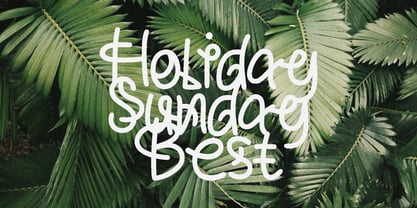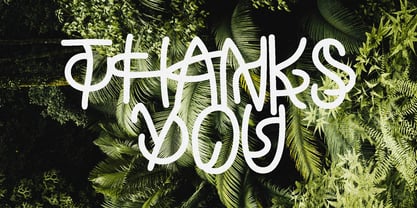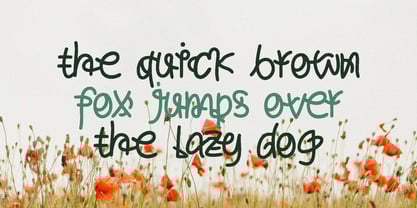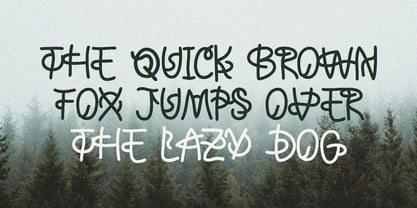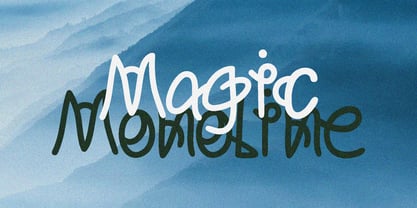
Magic Monoline
by Erifqizefont
The Magic Monoline Font Family was designed by Eka Rifqi Setiawan and published by Erifqizefont. Magic Monoline contains 1 styles. More about this family
Magic Monoline is a handwriting font with an abstract and unique touch, radiating a magical aura in every stroke. With flowing monoline curves and dynamic letterforms, this font creates the illusion of writing appearing as if by magic. Its eccentric and creative characteristics make it perfect for projects that seek to evoke an imaginative and artistic feel. Additionally, Magic Monoline supports multilingual characters, ensuring versatility across various languages.
Designers: Eka Rifqi Setiawan
Foundry: Erifqizefont